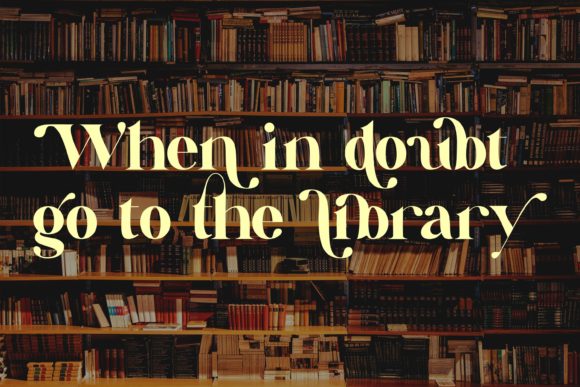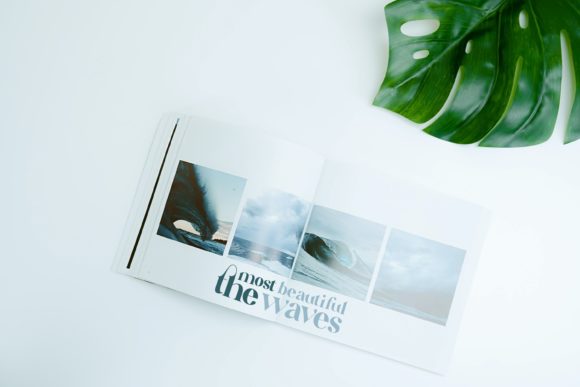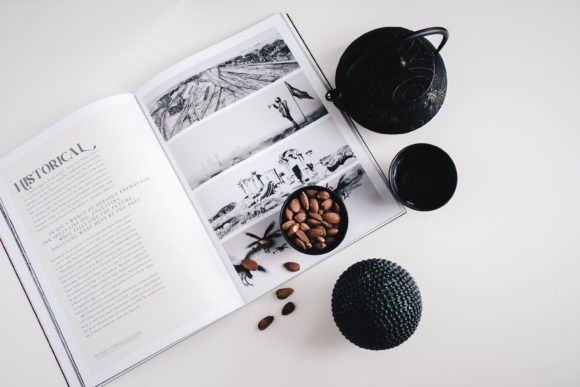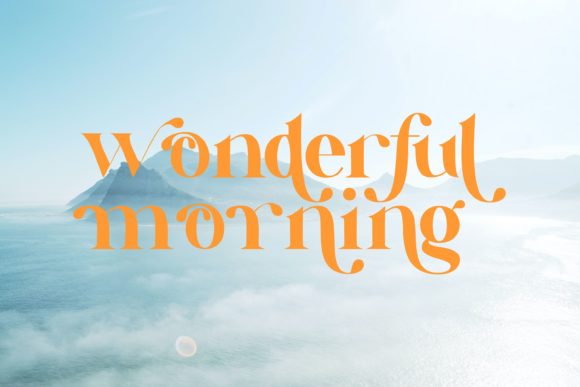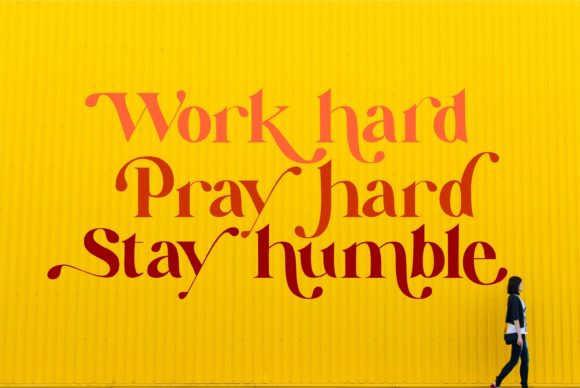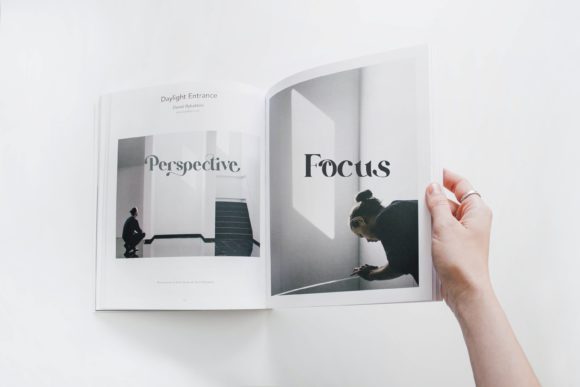
Introduction to Pulpy Orange Font Font
Fonts play a crucial role in design, and the Pulpy Orange Font font is a typeface that brings both character and versatility to any project. Whether you’re working on a branding project, a website, or a print design, the Pulpy Orange Font font offers a unique style that can elevate your work.
Pulpy Orange is a modern serif font suitable for branding, logos, birthday invitations, posters, banner designs, modern websites, etc.
Key Features of Pulpy Orange Font Font
Why Choose Pulpy Orange Font Font?
The Pulpy Orange Font font is more than just a typeface – it’s a design tool that helps you communicate your message with style and clarity. Its unique character set and versatile design make it suitable for a wide range of applications, from elegant invitations to bold headlines.
With its carefully crafted letterforms and balanced proportions, the Pulpy Orange Font font ensures readability and visual appeal across all mediums.
What makes Pulpy Orange Font font special?
The Pulpy Orange Font font stands out with its unique design, exceptional readability, and versatility across various design applications.